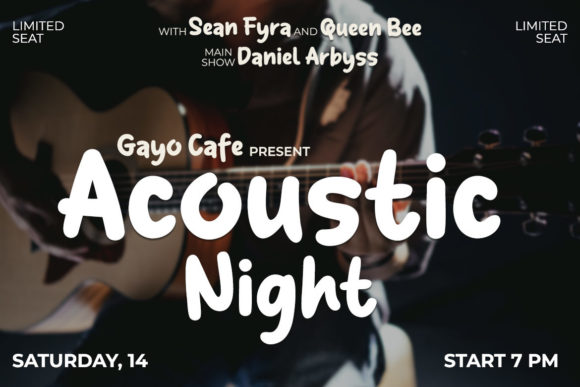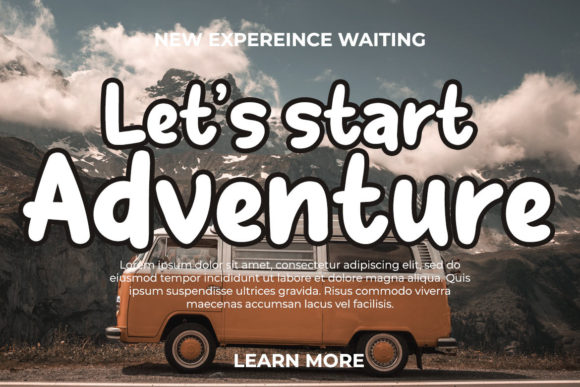
Shyest Font
db-ku.com - Script & Handwritten -- Shyest is a cute, trendy and casual handwritten font. Whether you’re looking for fonts for Instagram or calligraphy scripts for DIY projects, this font will turn any creative idea into a true piece of art!